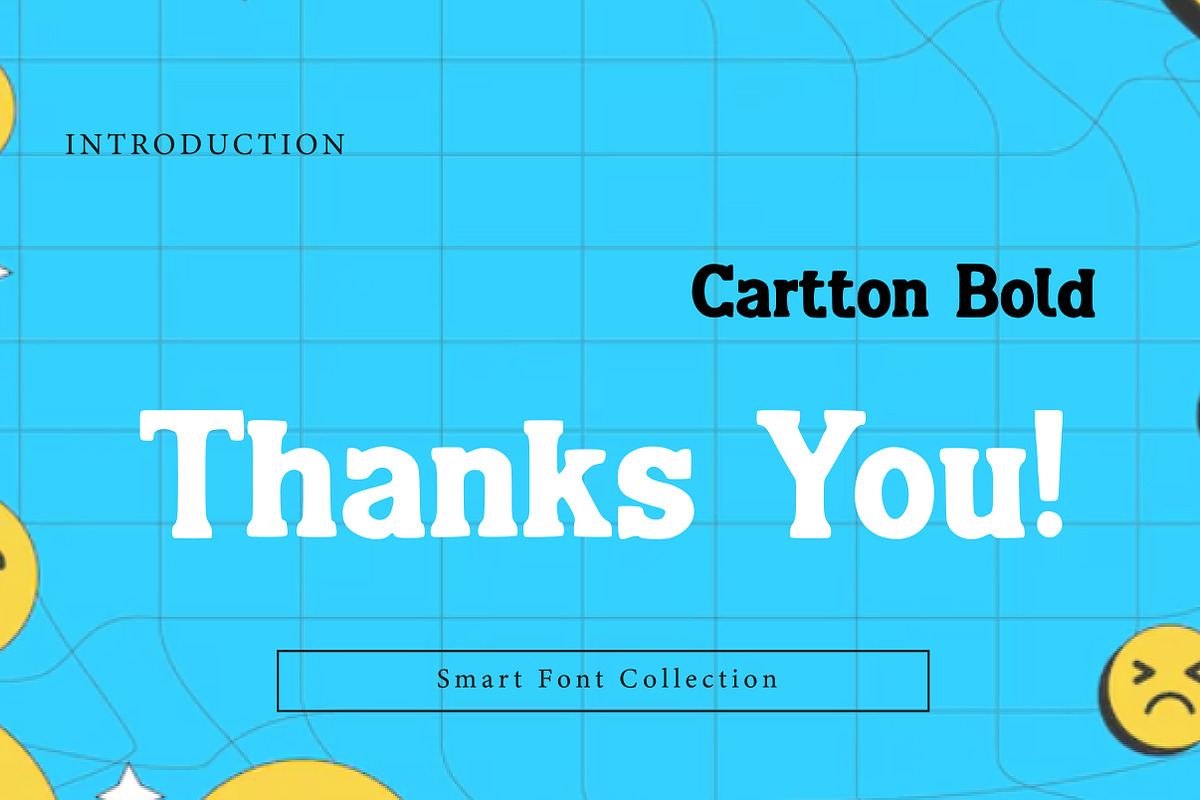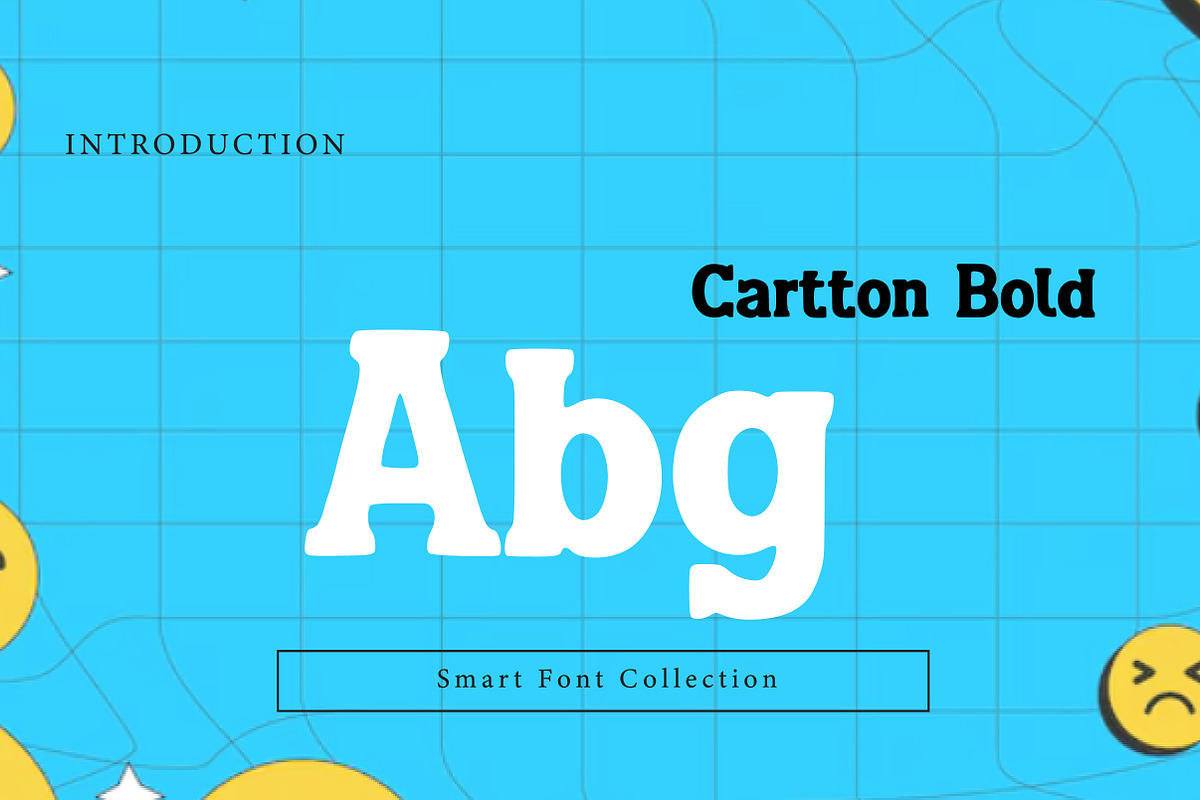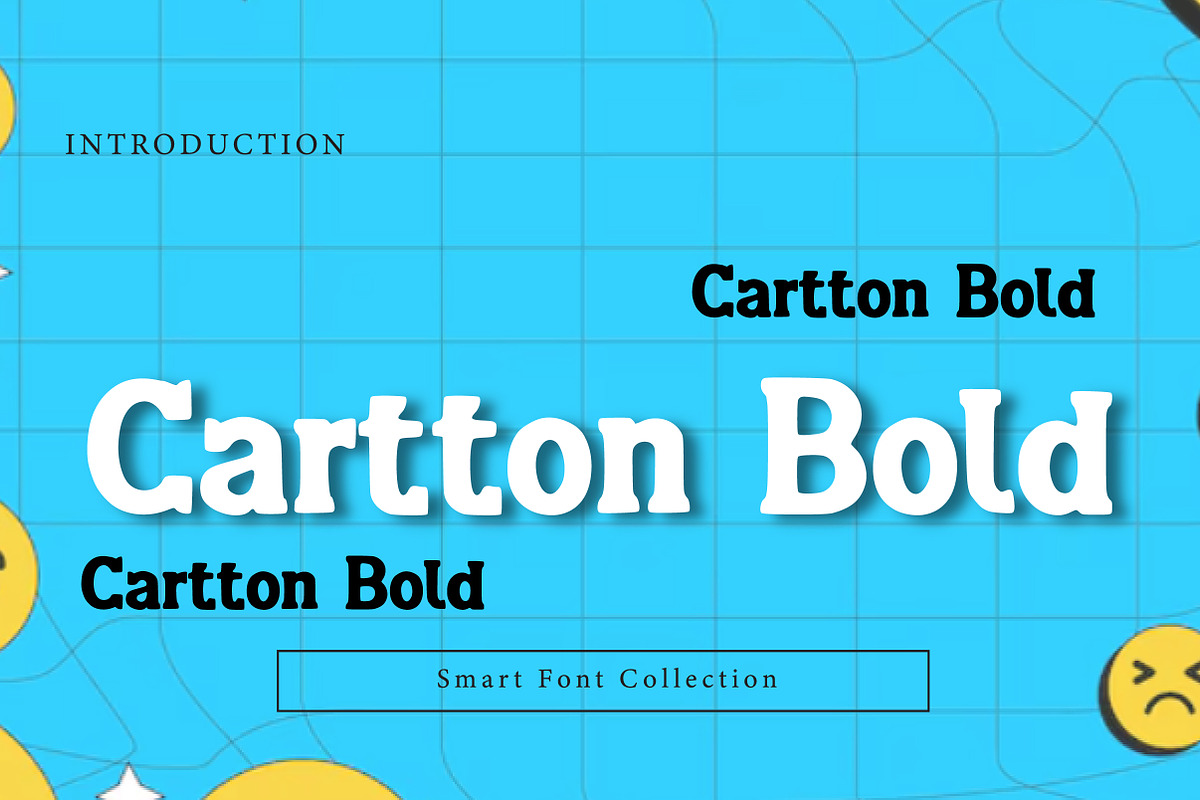
Cartton Bold
Cartton Bold is a bold, chunky, and playful cartoon-style display font designed to bring fun, energy, and personality to your typography. With its thick strokes, rounded curves, and classic cartoon-inspired structure, this font is perfect for designs that need to feel friendly, loud, and eye-catching.
Built for strong readability and high-impact visual appeal, Cartton Bold works beautifully for headlines, logos, titles, and playful branding. Its bold and confident letterforms make it ideal for both digital and print designs—especially when you want typography that instantly pops.
Whether you're creating a kids brand logo, comic poster, YouTube thumbnail, game title, sticker pack, or fun packaging design, Cartton Bold adds a cheerful cartoon vibe while keeping your text clean and easy to read. It’s a perfect choice for creative projects that demand boldness with a fun personality.